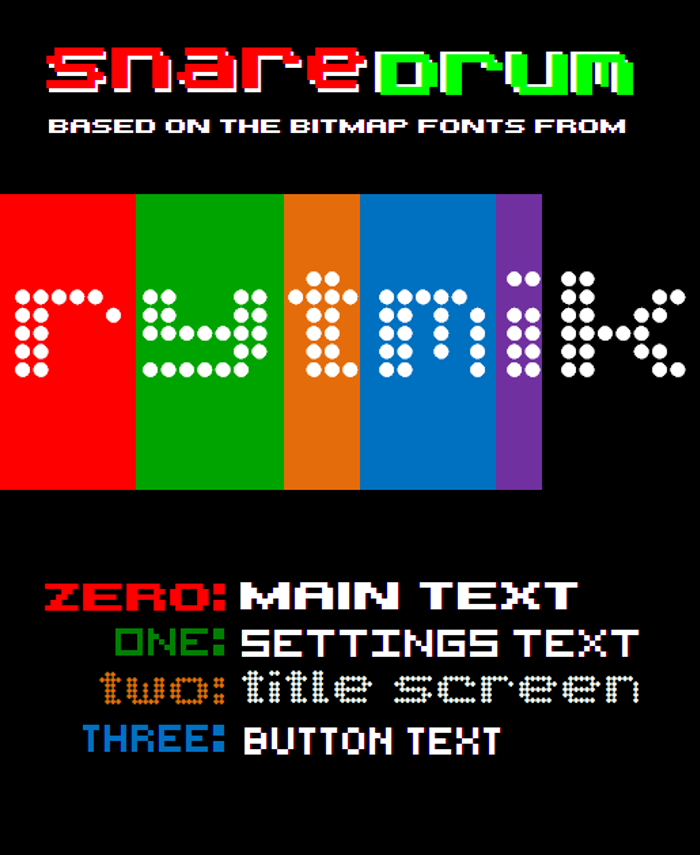
SnareDrum One NBP Font
4 pixel types based on the bitmap fonts from the Nintendo DSiWare music sequencer, Rytmik.
Zero is based on the main text, One is based on the instrument settings text, Two is based on the logotype, and Three is based on button text. Like it says there ;)